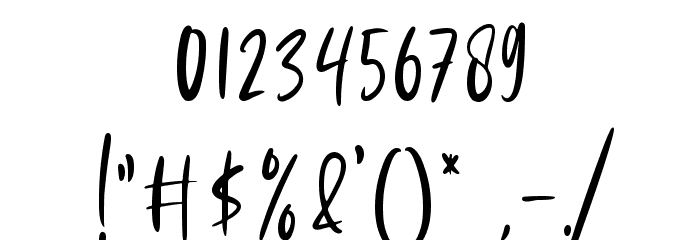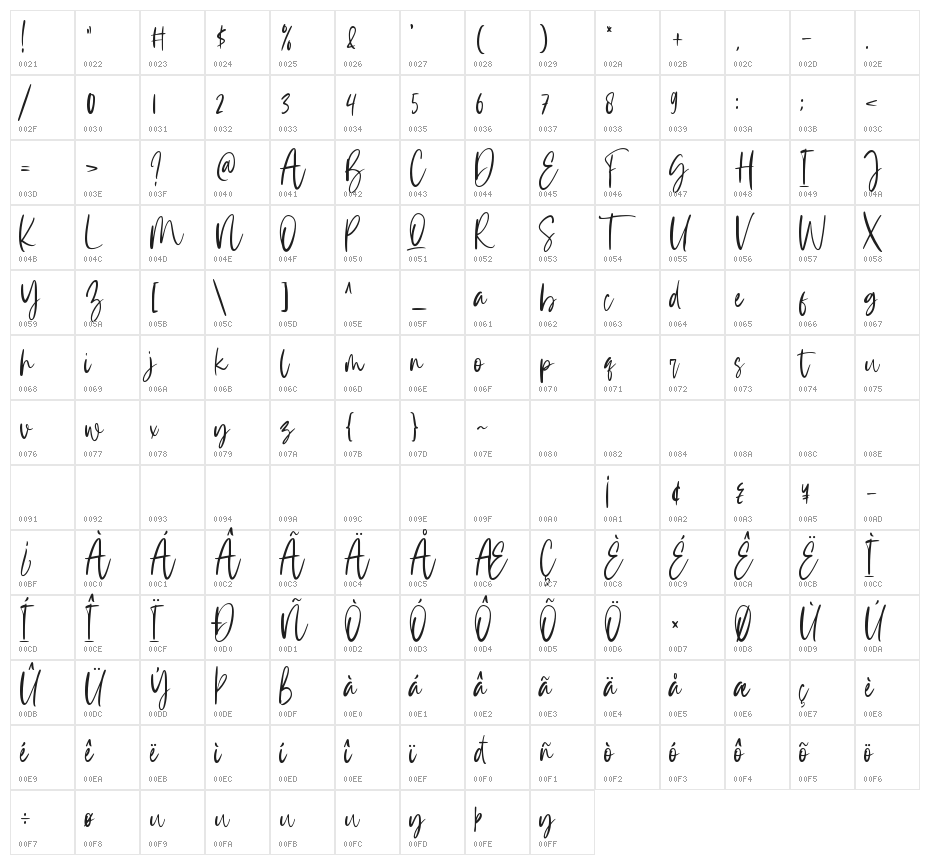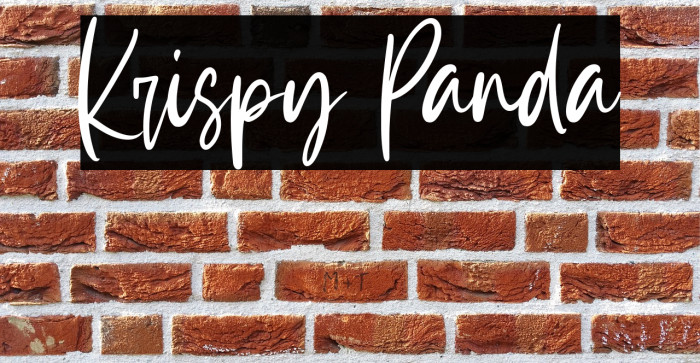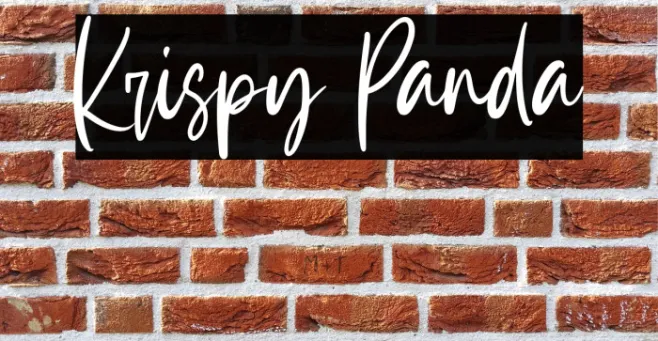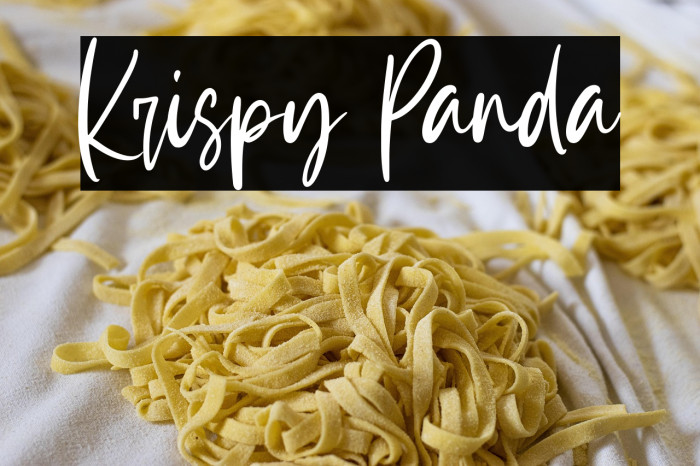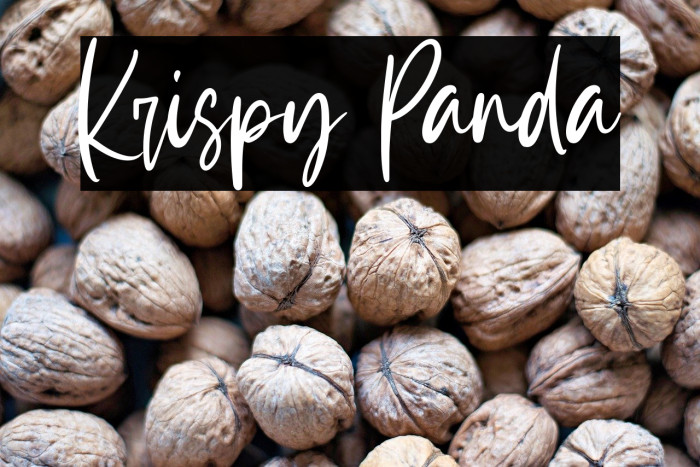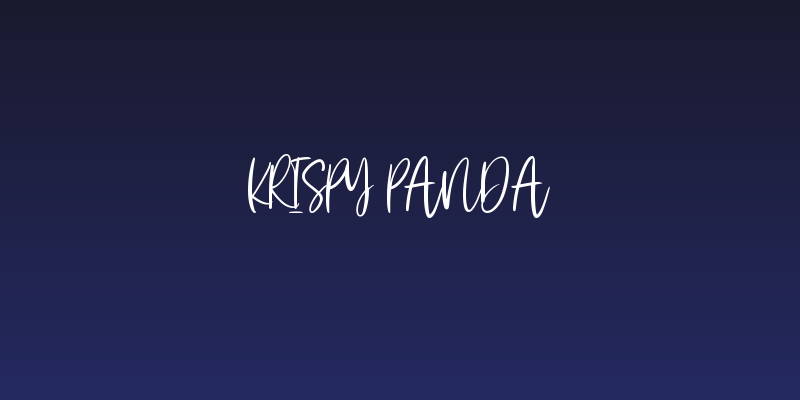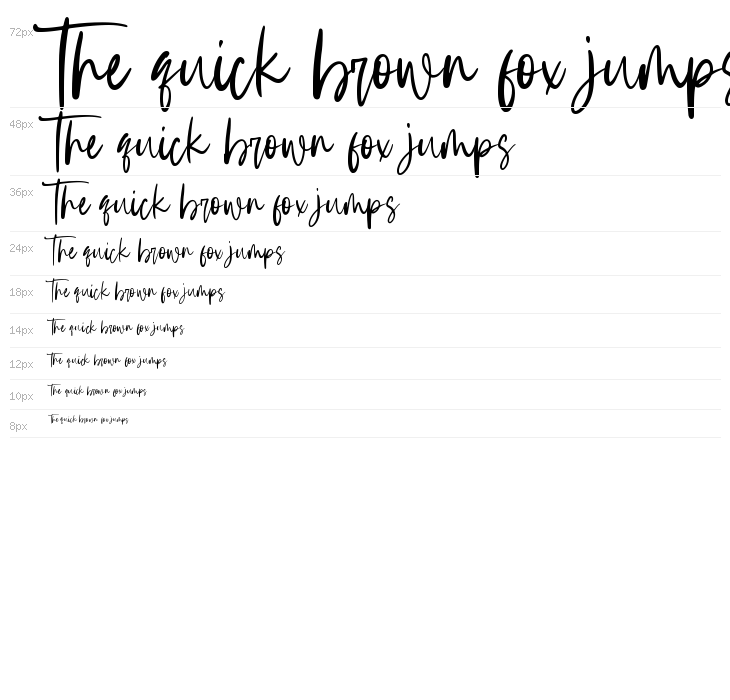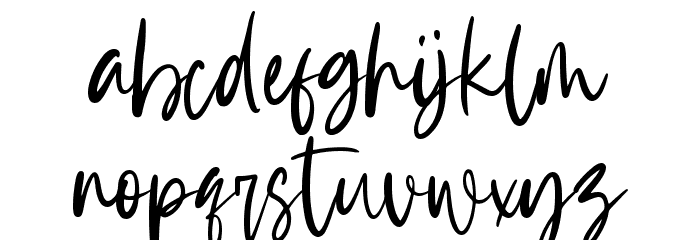
Krispy Panda Font
Krispy Panda Description
This font exudes a playful and energetic vibe with its handwritten style. The letters are characterized by their fluid, cursive strokes that vary in thickness, creating a dynamic and lively appearance. The uppercase letters are tall and slightly narrow, while the lowercase letters are more rounded and compact, adding to the font's whimsical charm. The numbers and special characters maintain the same lively style, ensuring consistency throughout. This font is perfect for projects that require a personal touch, such as invitations, greeting cards, or branding for creative businesses.
| Proposed Projects | Ideal for invitations, greeting cards, creative branding, and personal projects. |